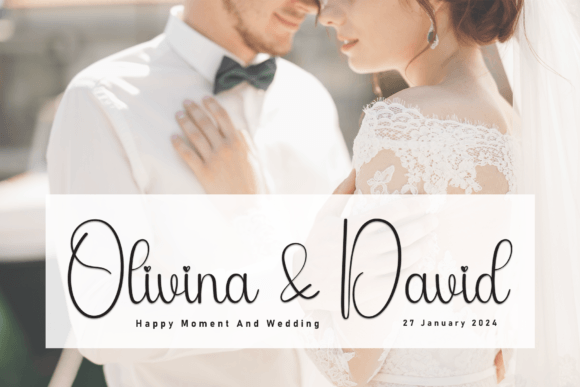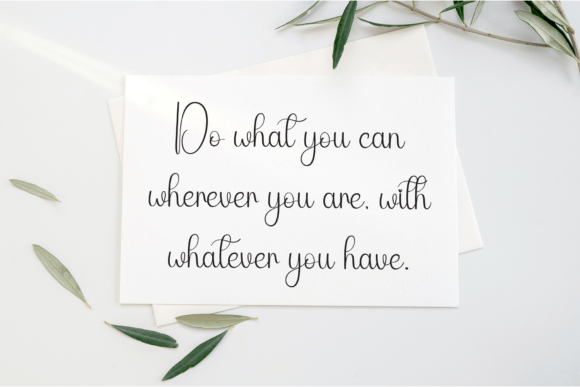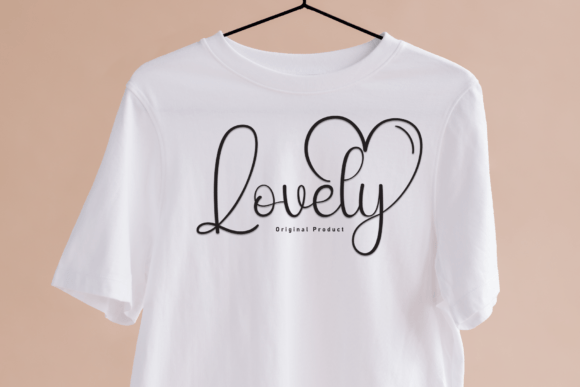
Calligraphy Font
Calligraphy is a sweet and friendly handwritten display font. Cute and fun, this font is ideal for writing wedding invitations, cards, or any other design that might need a fun touch!